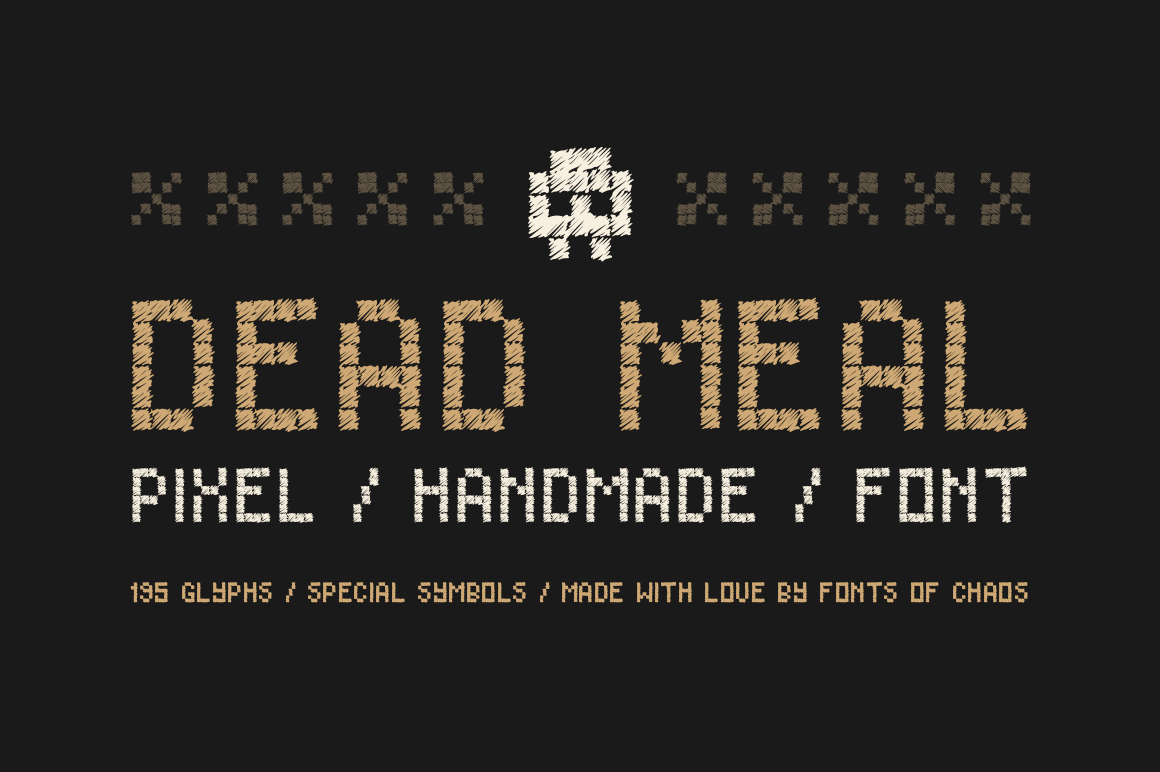
Dead Meal - Hand Drawn Pixel Font.
Do you like pixel font ? Or pixel art ? Do you like hand drawn fonts ? Then guys you are at the right place. Dead Meal is an awesome pixel style font made by hand. Each "fake" pixel is a nice square of slash pen.
Complete with 195 characters + special symbols like emoticon, skull, and more.